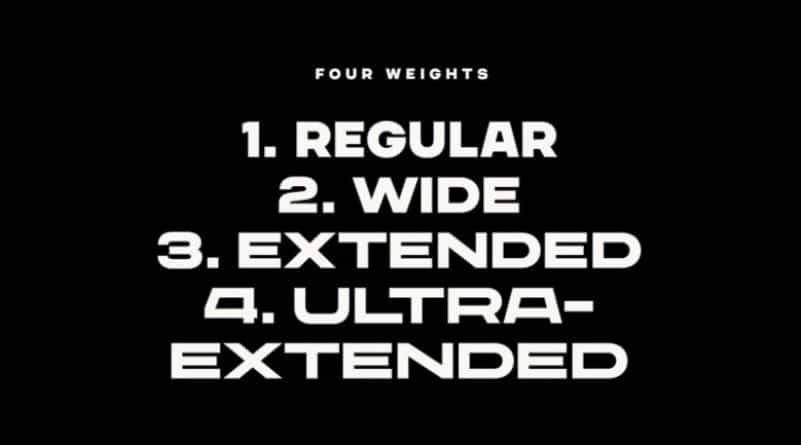
Chaney Sans Font Family is a simple, true, AIS caps-only, geometric display font family of four weights (Regular, Wide, and Ultra Extended) with alternate characters. The simple monoline letters create a versatile font for short paragraphs of text, branding logos, editorial design, and web usage.